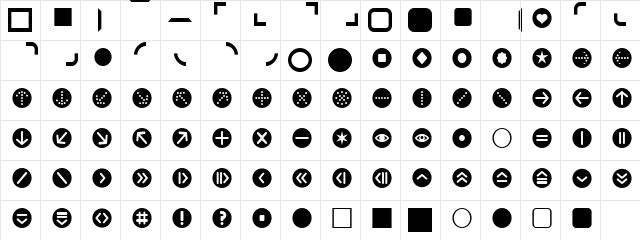
ButtonBonus Regular
Design Context for ButtonBonus Typeface
ButtonBonus takes a measured approach to typography — its balanced proportions and neutral character make it a reliable workhorse for both digital and print work.